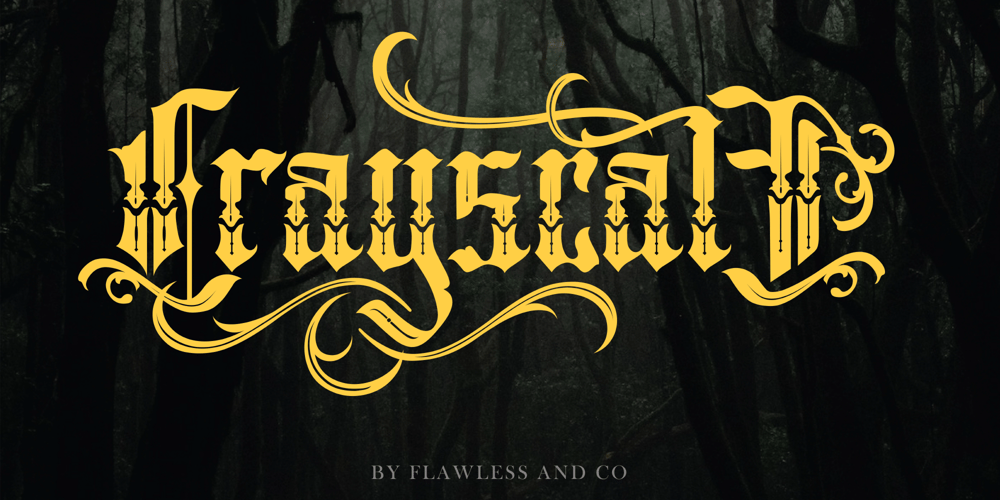
Crayscale Font Family was designed by Achmad Yani and published by Flawlessandco. Crayscale contains 1 styles and family package options. Introducing “Crayscale” – a captivating blackletter Victorian font that exudes elegance and timeless charm. Inspired by the ornate lettering styles of the Victorian era, Crayscale is meticulously crafted to bring a touch of vintage sophistication to your designs. There’s some connected letters and some alternates that suitable for any graphic designs such as branding materials, t-shirt, print, business cards, logo, poster, t-shirt, photography, quotes .etcThis font support for some multilingual. Also contains uppercase A-Z and lowercase a-z, alternate character, numbers 0-9, and some punctuation.If you need help, just write me! Thanks so much for checking out my shop!